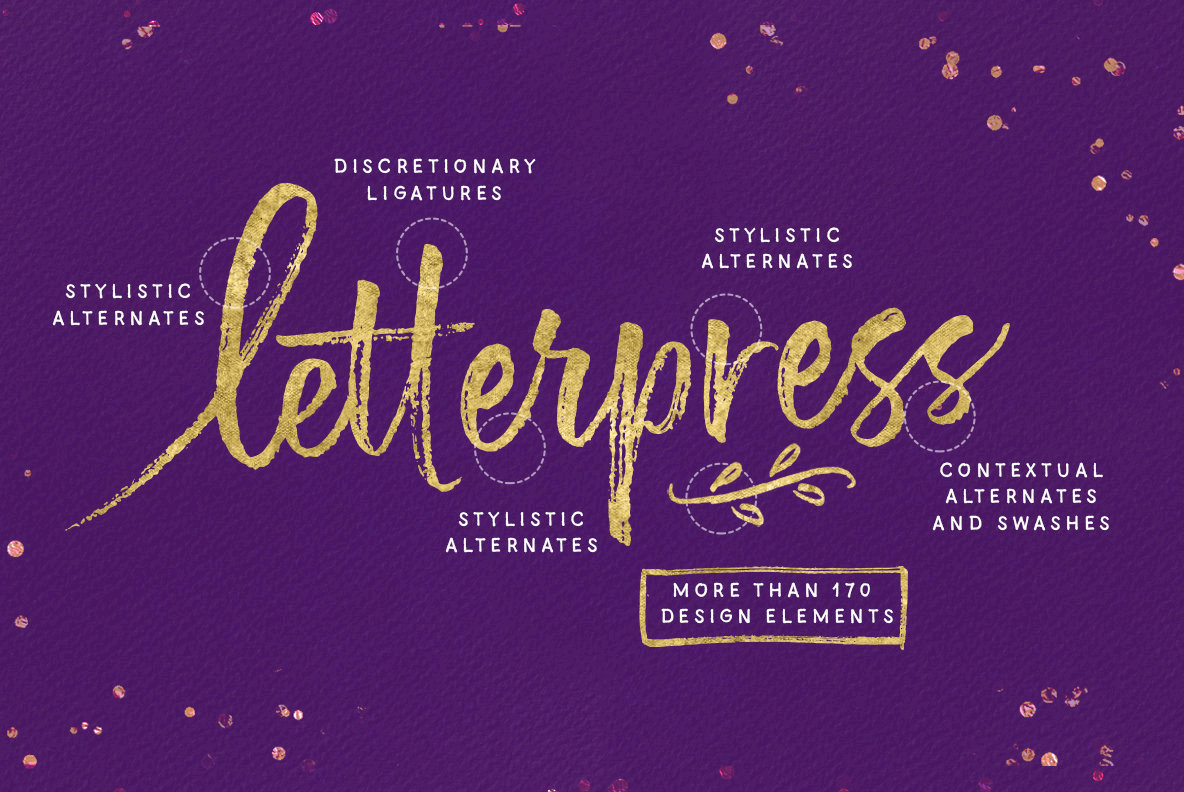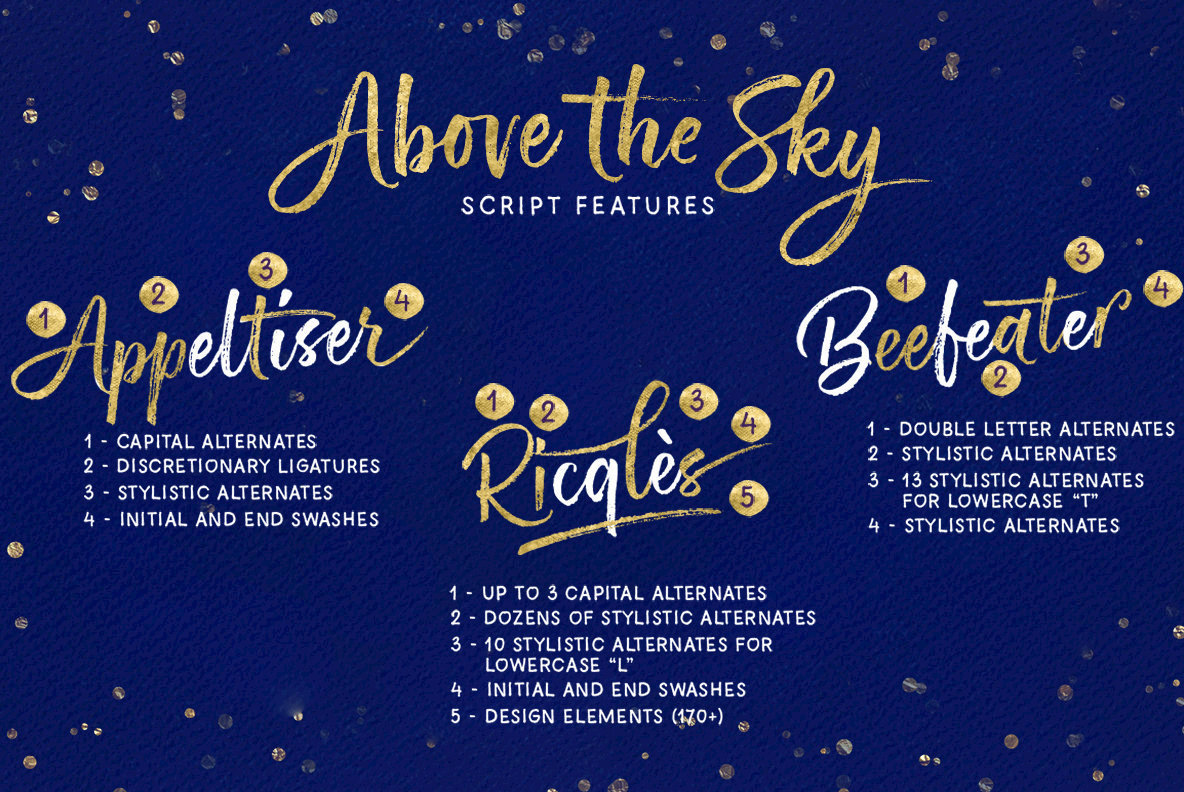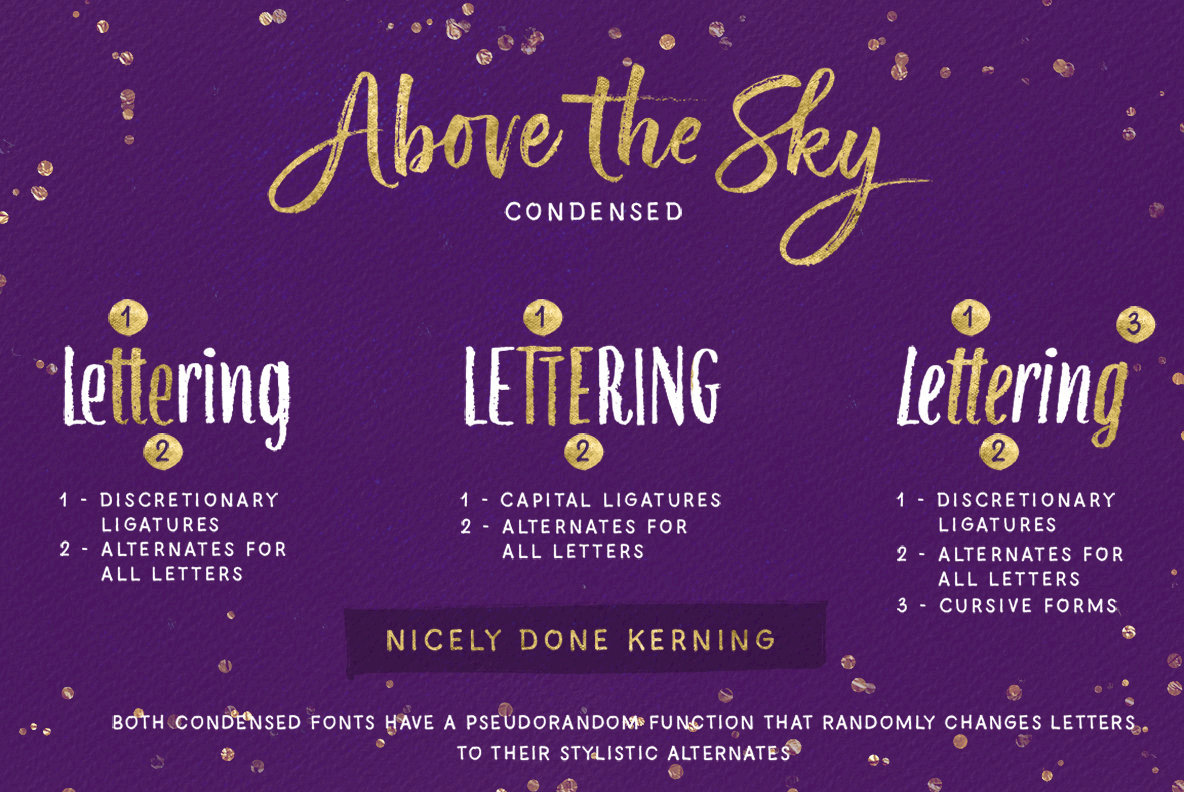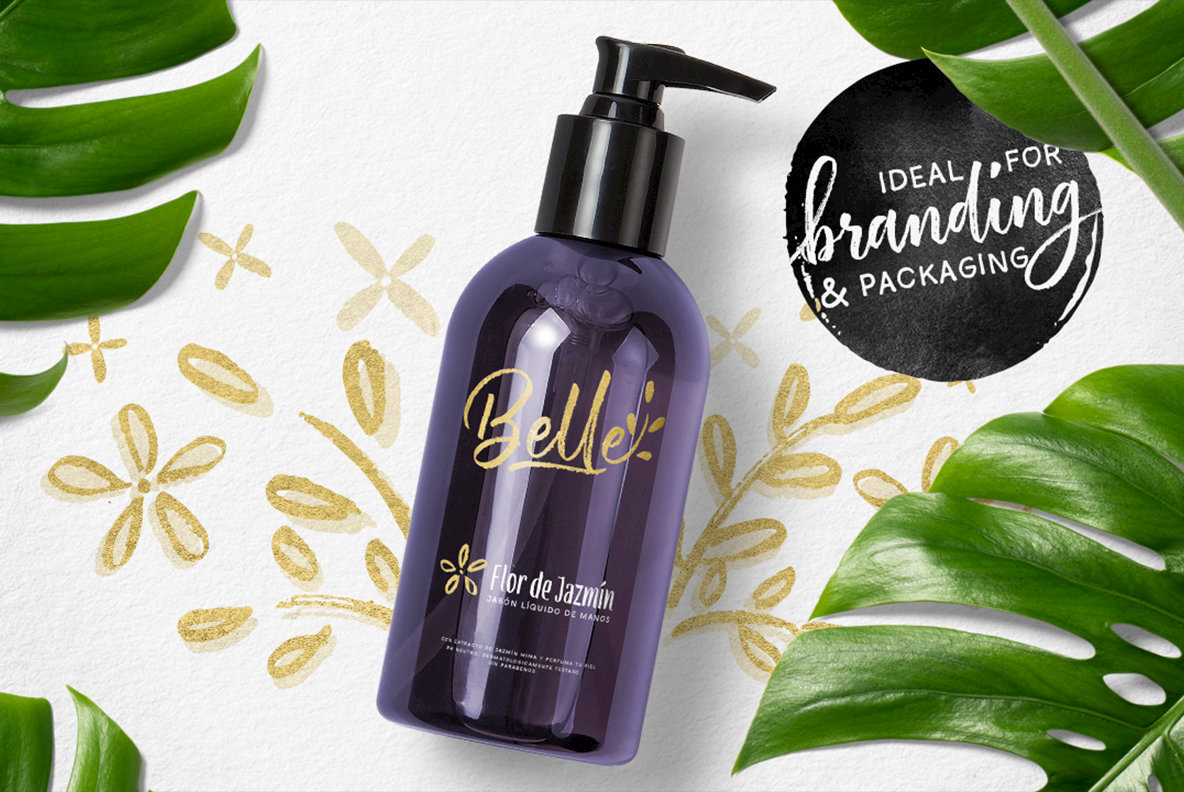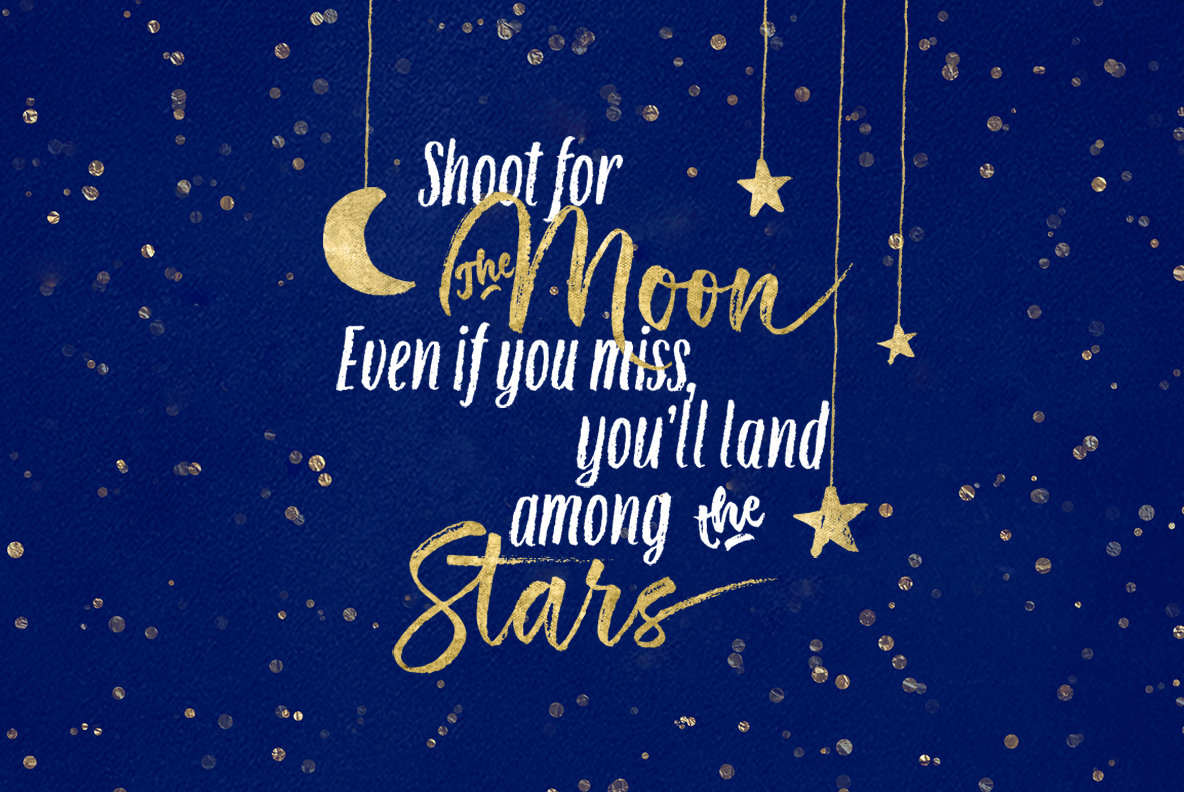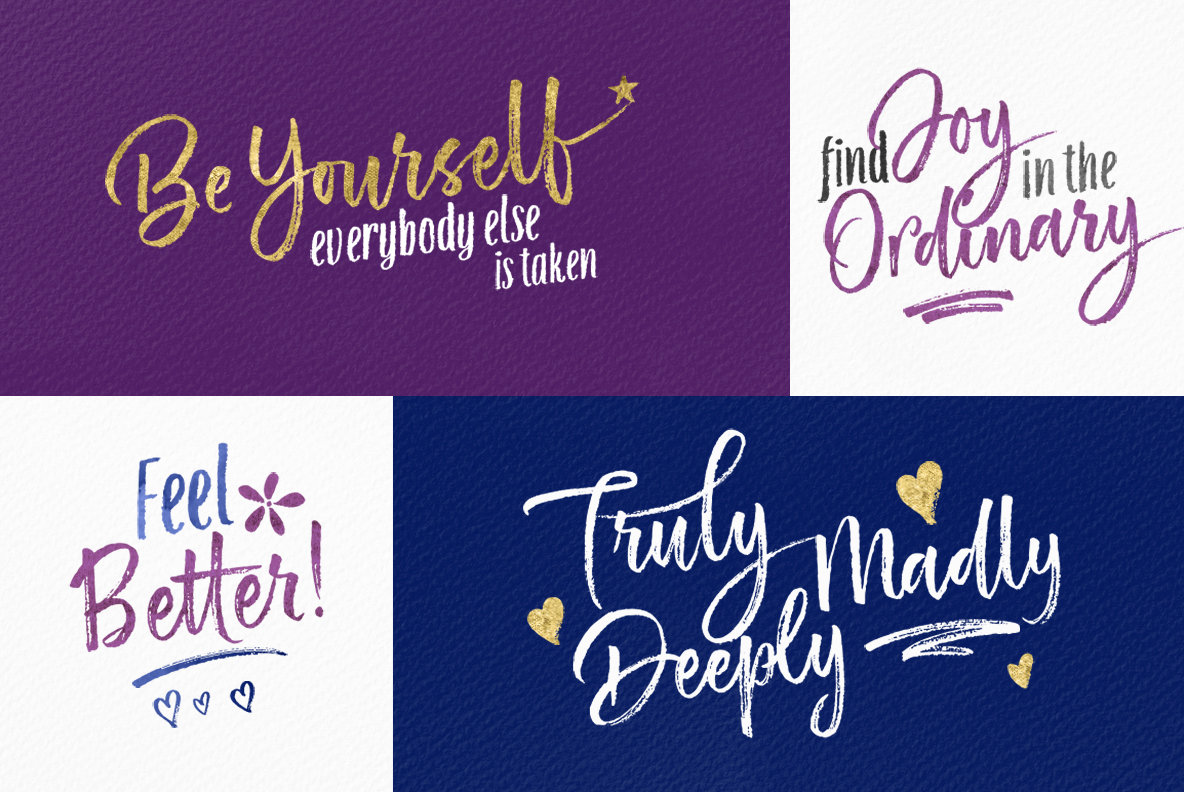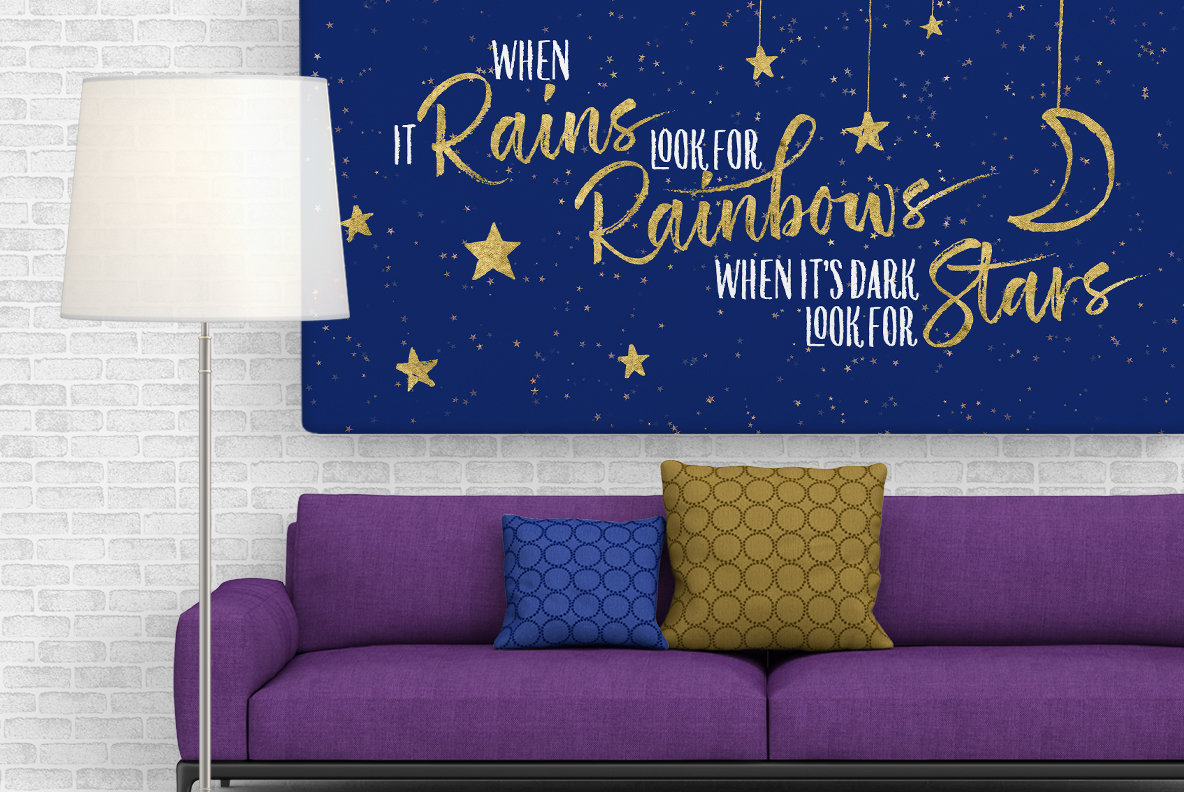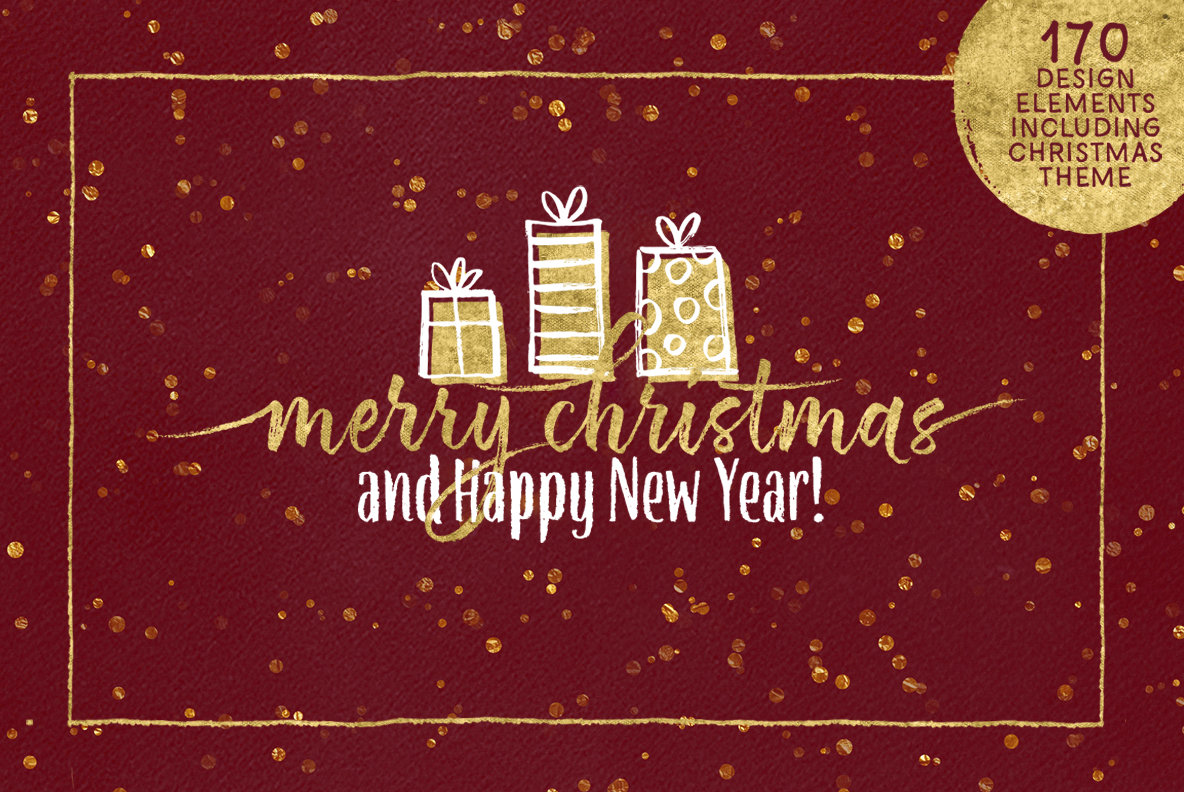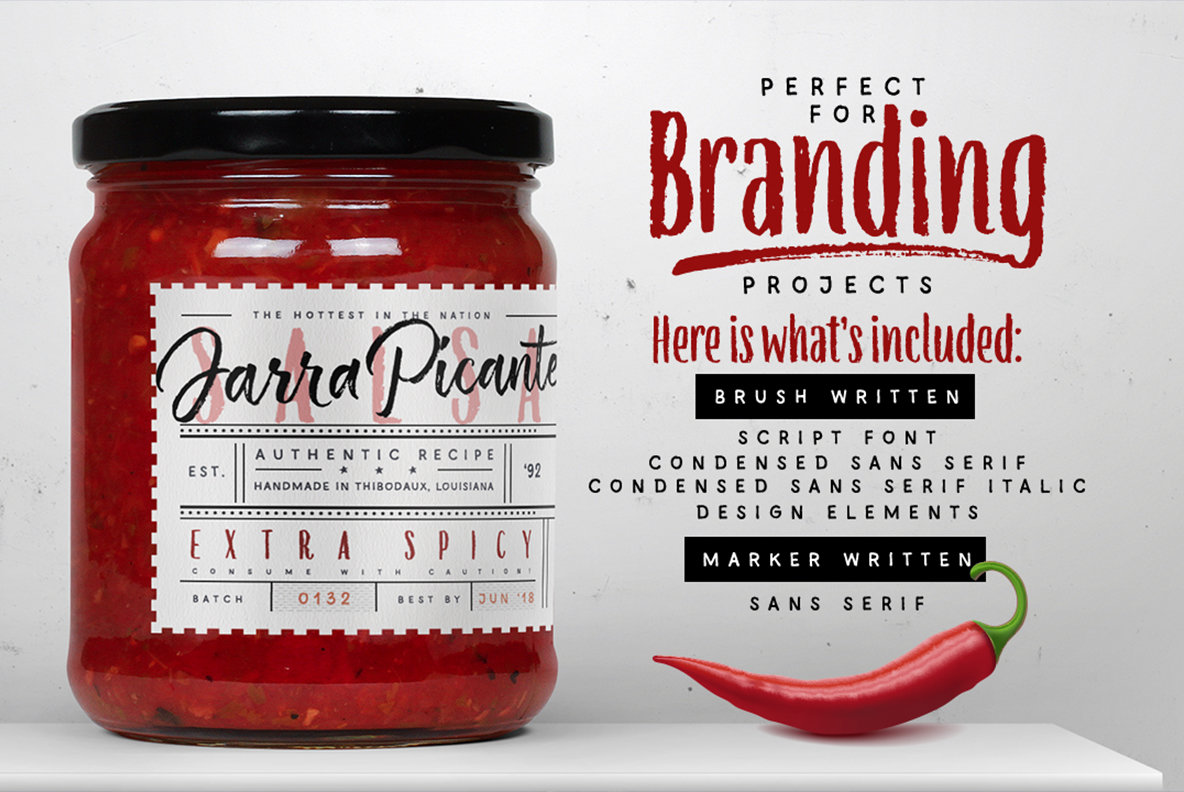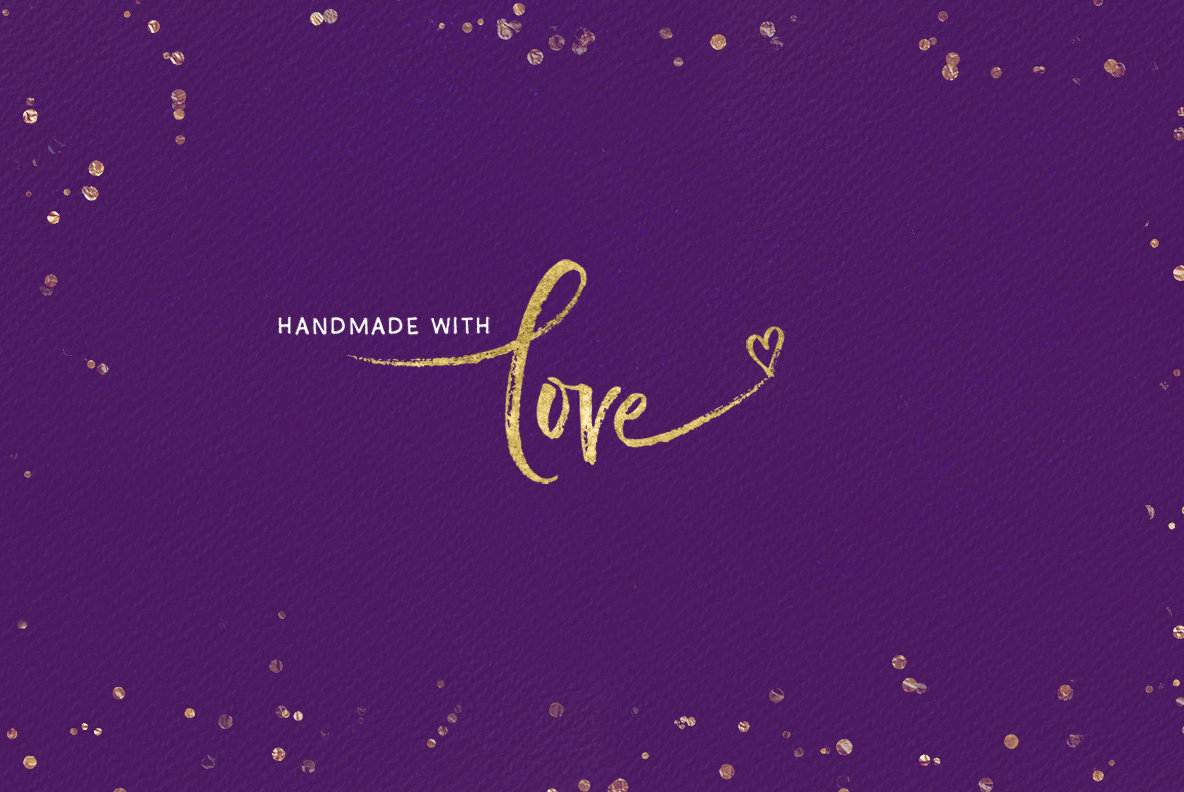
Above The Sky Font
Meet Above The Sky, a versatile addition to any designer's toolkit. This brush-written font family, featuring an all-caps marker font, is perfect for adding a secondary text element to your creative projects. Crafted for adaptability, these fonts shine in various applications, from quotes and branding to merchandise and packaging.Above The Sky: A Dynamic Brush Font Family